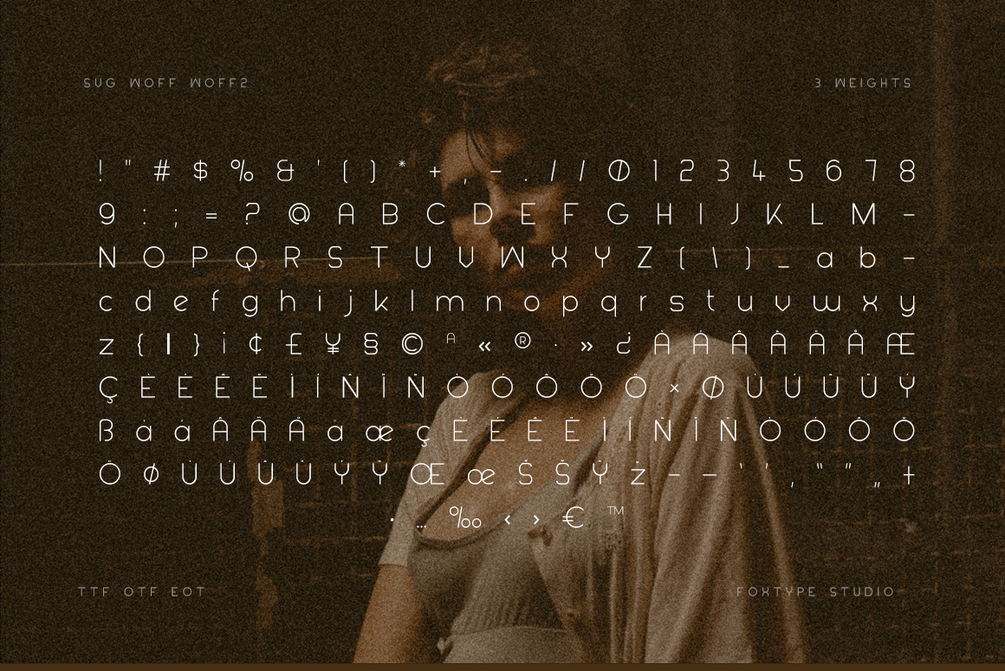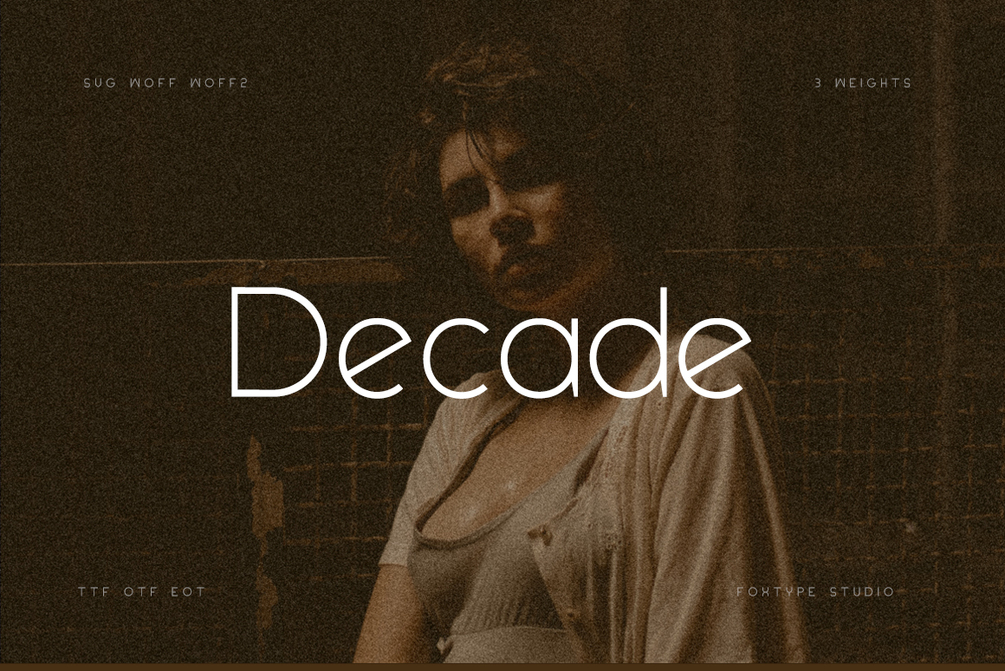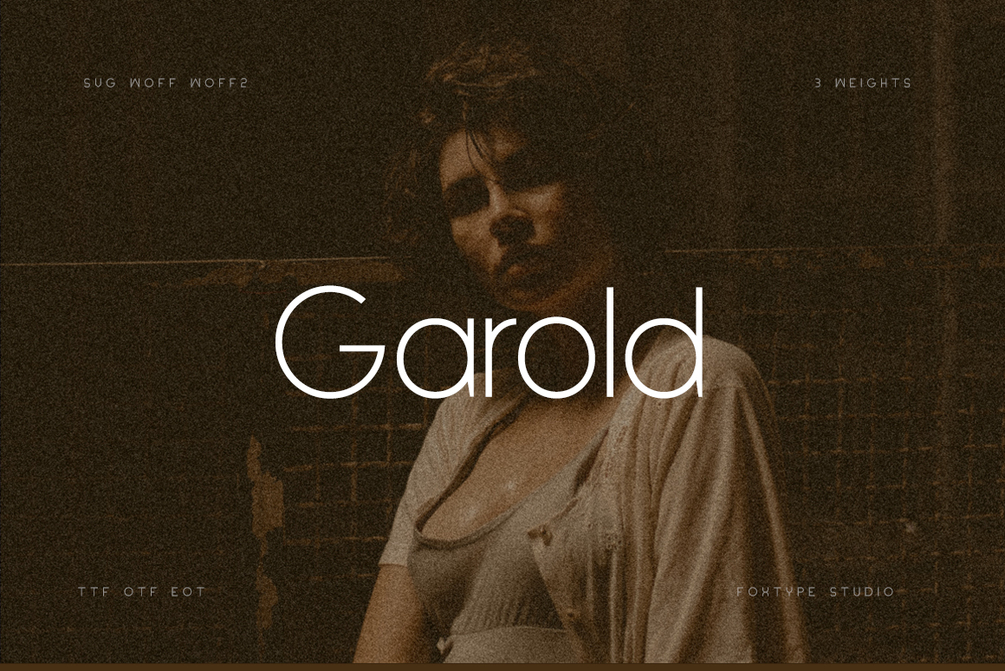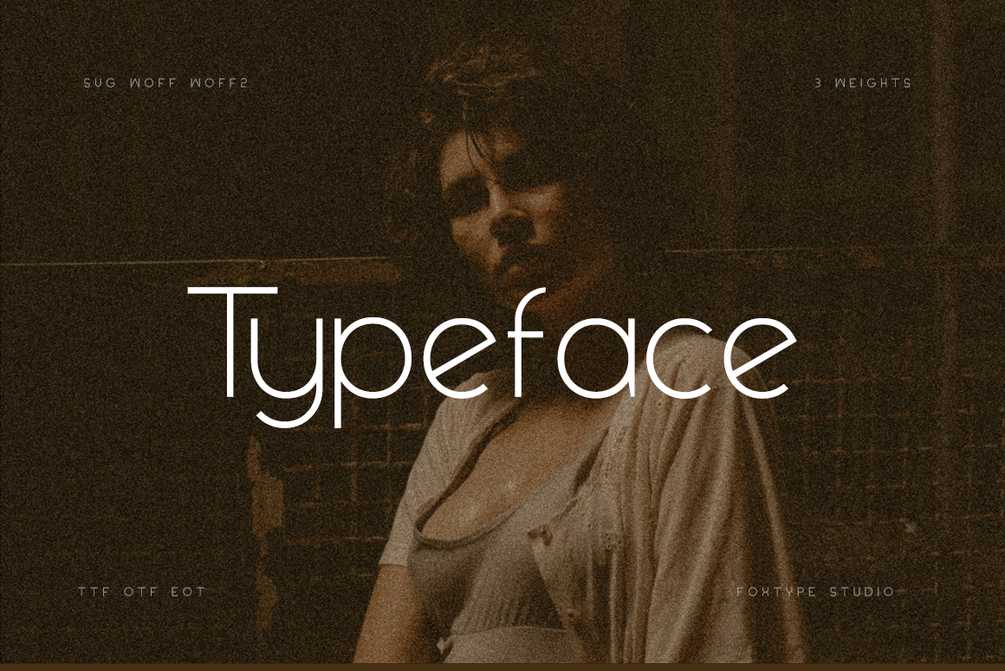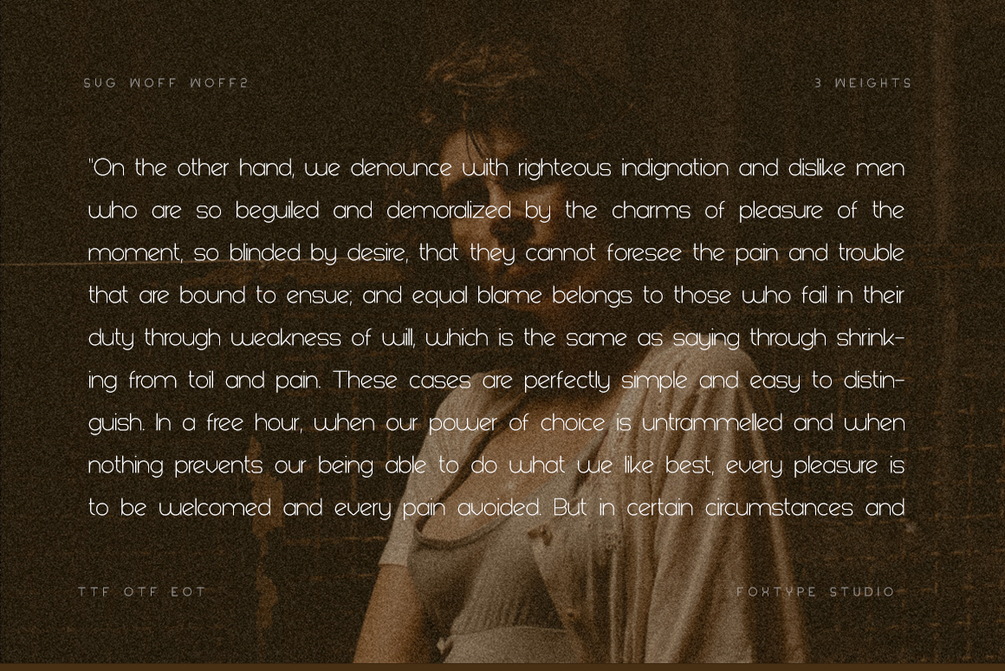
Garold Logo Typeface
Garold Logo Typeface is a Minimalist Modern Elegant Typeface with Web-fonts and 3 weights. It's a very versatile font that works great in large and small sizes. Garold would perfect for branding, logos, headlines, Captions. or simply as a stylish text overlay to any background image.